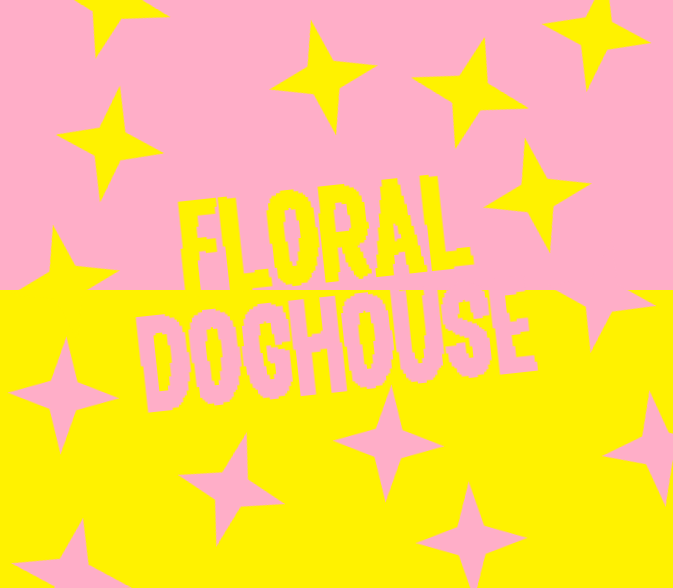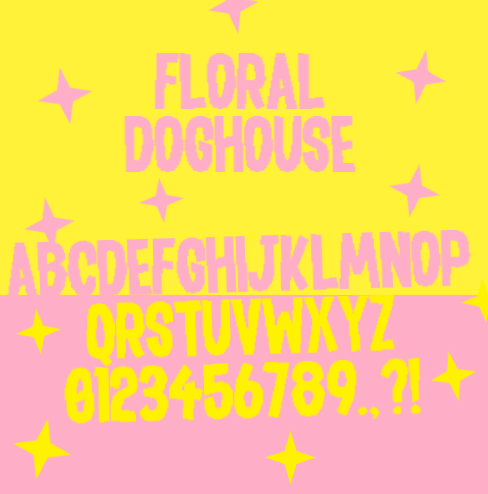
Here is a sample!
I like it. “N” is either a bit too thick or too tight spacing-wise, the weight change is instantly noticeable when you try typing some sentences.
@Cookielord- I see what you are talking about, but I don't know how exactly how to adjust it. Could you give me a rough idea of your solution?
Well, you could make that letter’s lines a tad thinner. And check whether that works by zooming out the preview.
nice
I fixed it!
Tell me if its still too thick!